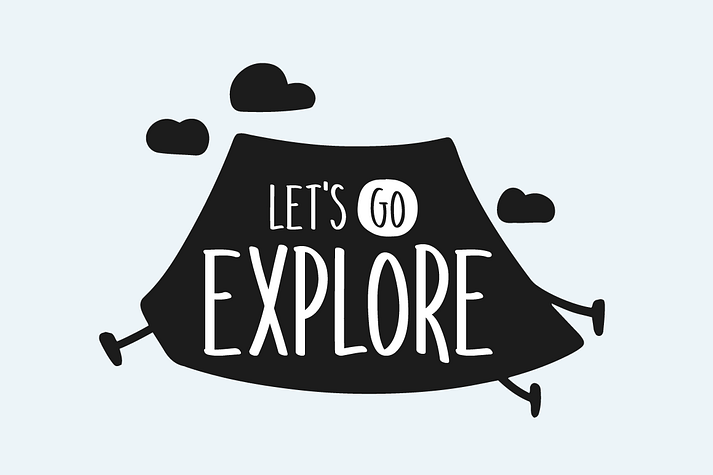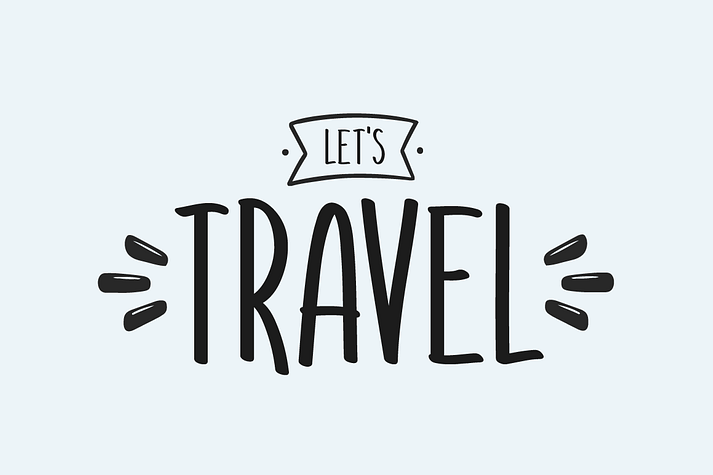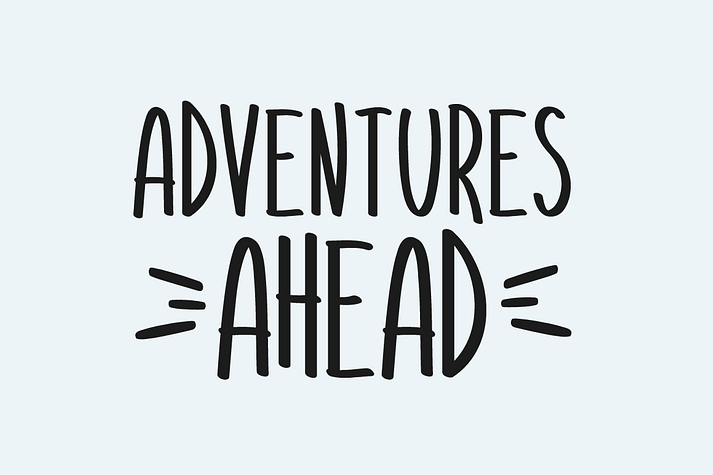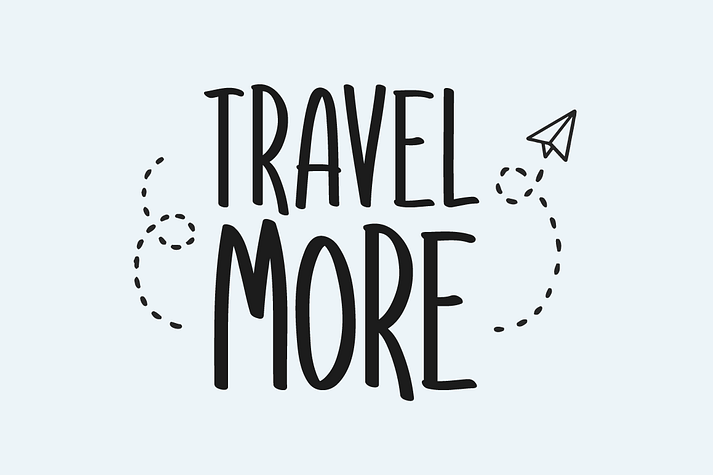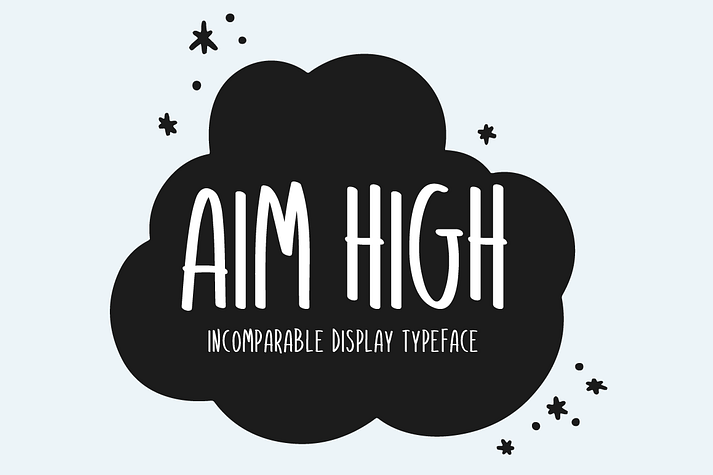
Aim High
Aim High is a hand display and kids font family published by Seemly Fonts.
Introducing Aim High!
Aim High is a simple, neat, and natural handwritten font, that can be used for all chalkboard quotes or teaching material! Its authentic look and feel will add a personal and realistic feel to your designs.
Includes a range of multilingual support